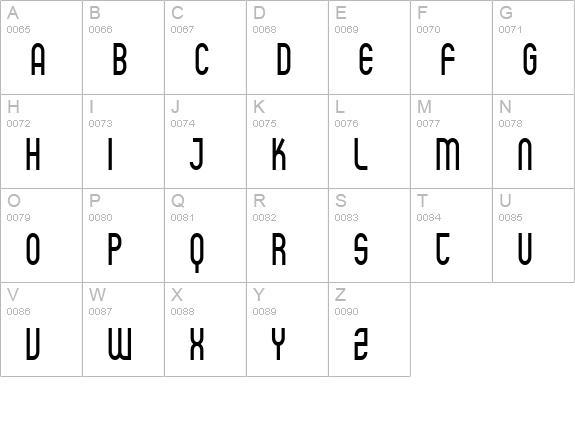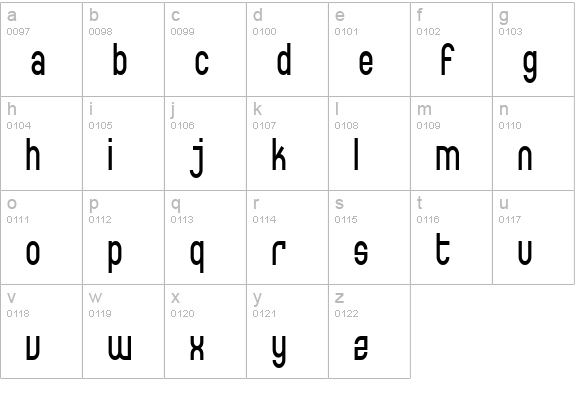
SF Eccentric Opus Condensed Font Details
SF Eccentric Opus Condensed is a distinctive, condensed-width variant in the SF typeface family \xE2\x80\x94 well suited to design and typography projects.
SF Eccentric Opus Condensed is a font that is sure to make a statement with its unique and eccentric design. Its condensed form adds a touch of sophistication and modernity to any project, making it perfect for eye-catching headlines, bold logos, and striking displays. This font is not your average typeface; it is a free-spirited creation that dares to be different. With its unconventional letterforms and quirky details, SF Eccentric Opus Condensed exudes creativity and a sense of playfulness. It breaks away from the norm and allows you to express your individuality in a visually captivating way. One of the best things about SF Eccentric Opus Condensed is that it is freely available to download at FontsMarket.com. This means that you can easily obtain this font without any hassle or cost. Whether you are a professional designer looking for a unique font to add to your collection or an individual seeking a font that will make your personal projects stand out, SF Eccentric Opus Condensed is the perfect choice. With its freely available download, SF Eccentric Opus Condensed offers accessibility and convenience. You can effortlessly bring your creative visions to life by incorporating this font into your design projects. The versatility of SF Eccentric Opus Condensed allows it to be used in a wide range of applications, from print materials to digital designs, ensuring that you have the freedom to explore and experiment with different creative possibilities. Embrace the eccentricity and unleash your imagination with SF Eccentric Opus Condensed. This font is a captivating blend of boldness and individuality, and its freely available download makes it even more appealing. So, why wait? Head over to FontsMarket.com and get your hands on this extraordinary font today.